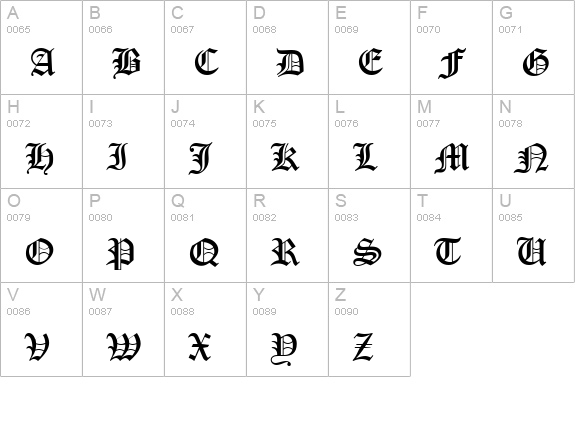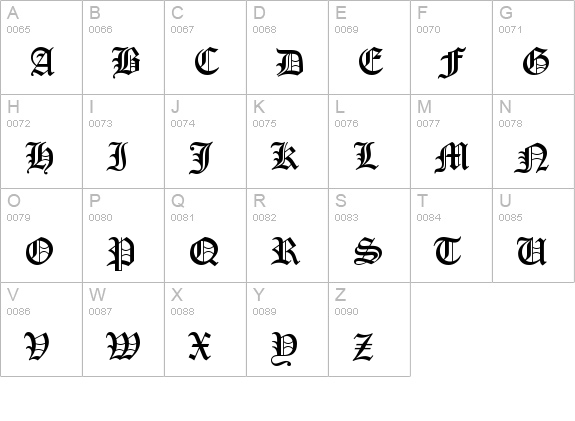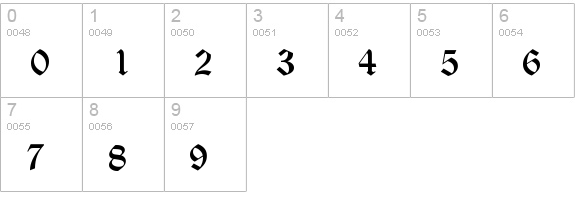
OldBlackletter-Regular Font Details
OldBlackletter-Regular is the standard, neutral variant in the OldBlackletter typeface family \xE2\x80\x94 well suited to general body text, paragraphs, and standard typographic work.
OldBlackletter-Regular is a classic and elegant font that exudes a sense of sophistication and tradition. Its historic blackletter style adds a touch of vintage charm to any design project. The intricate details and ornate flourishes of this font make it perfect for creating eye-catching headlines, invitations, or logos. Best of all, OldBlackletter-Regular is available for free download at FontsMarket.com. Whether you're a designer looking to add a touch of old-world charm to your work or a typography enthusiast searching for a unique and timeless font, OldBlackletter-Regular is sure to impress with its timeless appeal and versatility. Download OldBlackletter-Regular today and add a touch of elegance to your next project.